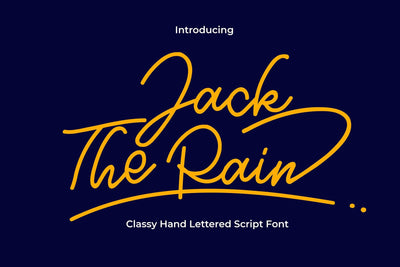
Jack The Rain - Monoline Script Handwritten Font
Introducing "Jack the Rain," a captivating script font that combines elegance and a monoline handwritten style. This font is perfect for projects that require a touch of sophistication , handcrafted feel. With its stunning swash feature, "Jack the Rain" adds a graceful and refined flair to your designs.
- Graffiti Characters looks